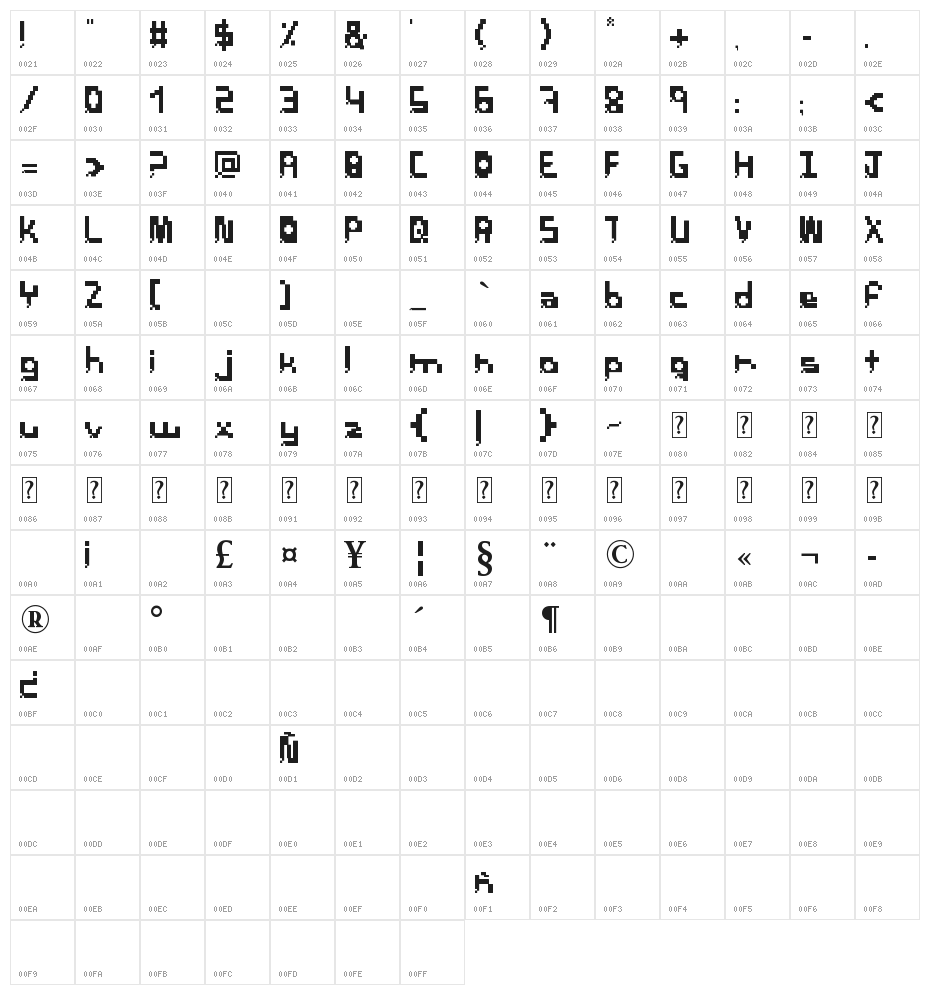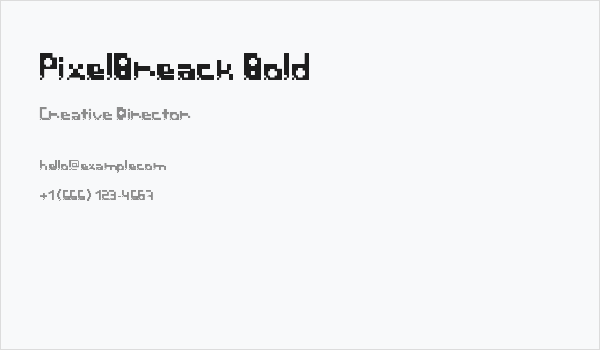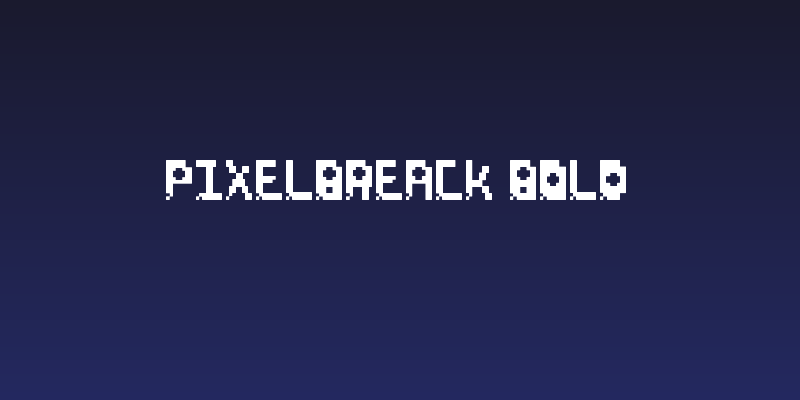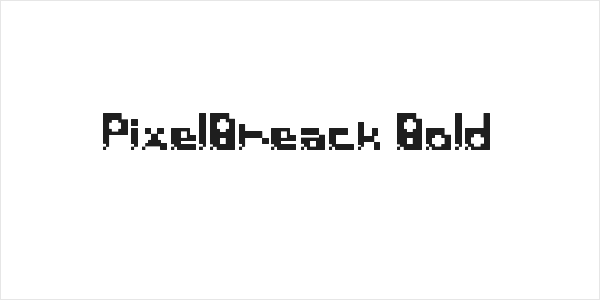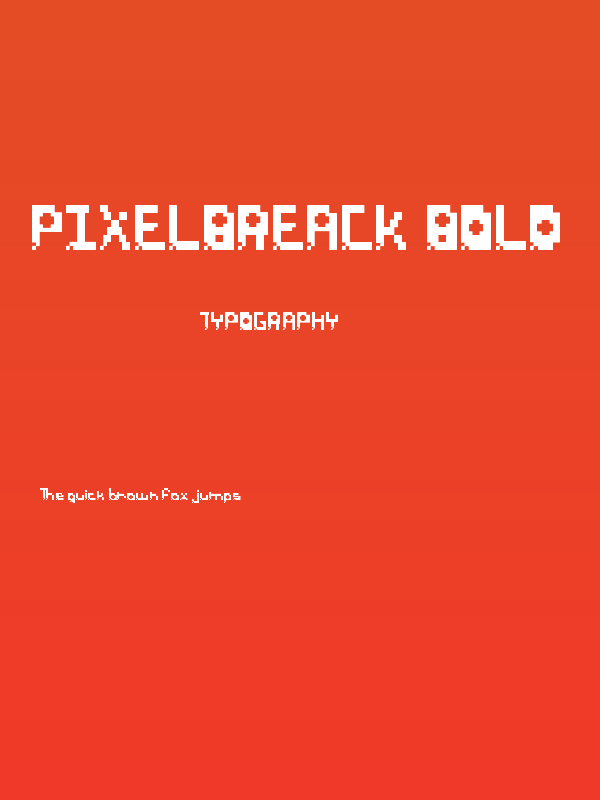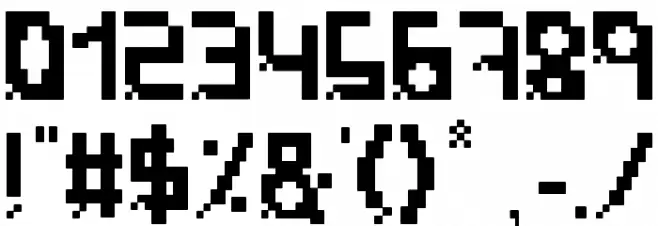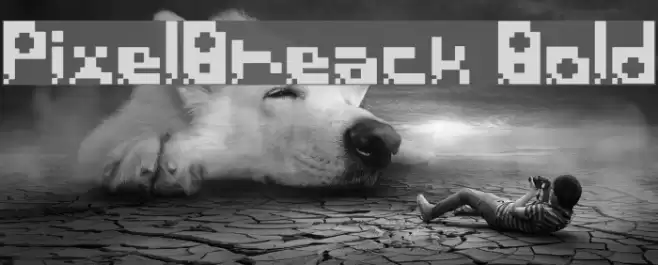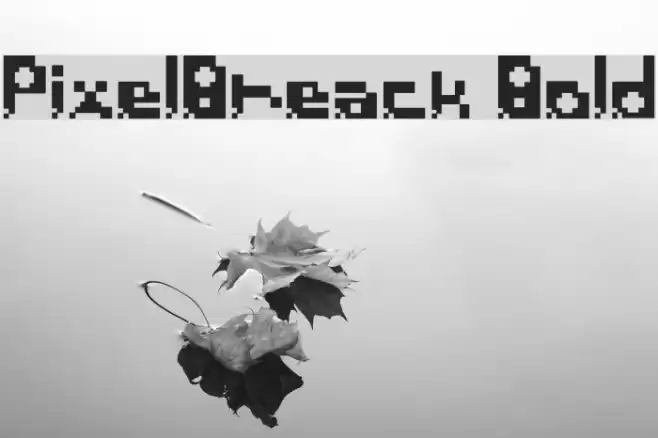
PixelBreack Bold Font
PixelBreack Bold Description
This font features a bold, pixelated design reminiscent of classic video game graphics. Each character is constructed with a blocky, grid-like structure, giving it a distinct digital aesthetic. The uppercase and lowercase letters maintain a consistent height, while the numerals and special characters follow the same pixelated style. The font's geometric precision and uniformity make it ideal for projects that require a retro or tech-inspired look. Its boldness ensures high visibility and readability, even at smaller sizes.
| Use Case | Headlines, Logos, Digital Art |
| Proposed Projects | Ideal for video game graphics, retro-themed designs, digital art, and tech-related branding. |